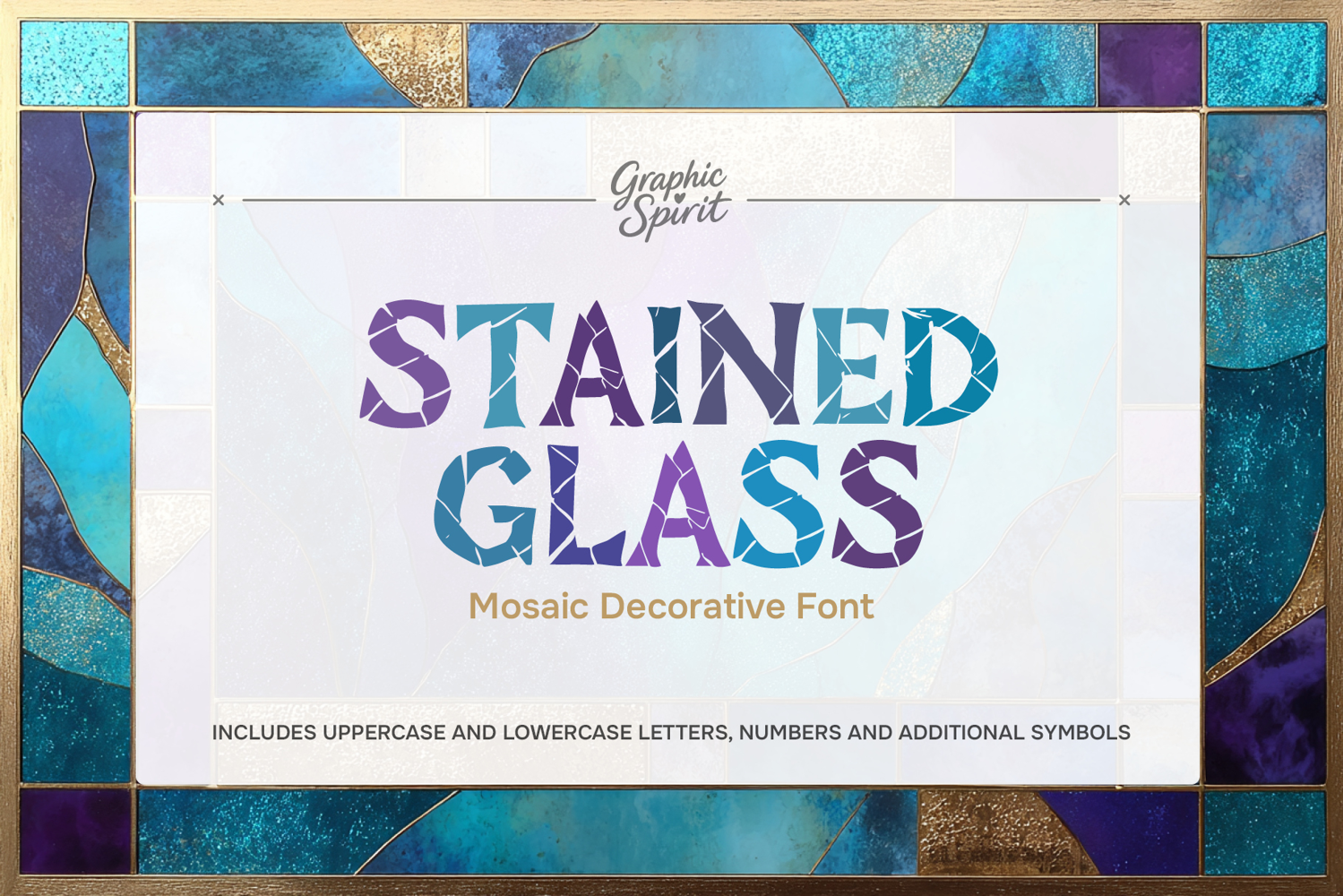
Stained Glass Mosaic Decorative Font
✨ Elevate your creative projects with our Stained Glass Mosaic Decorative Font! This unique digital typeface captures the timeless beauty of classic stained glass, featuring intricate, geometric letterforms filled with rich texture and artisanal charm. Perfect for adding a vintage, handcrafted feel to your designs.